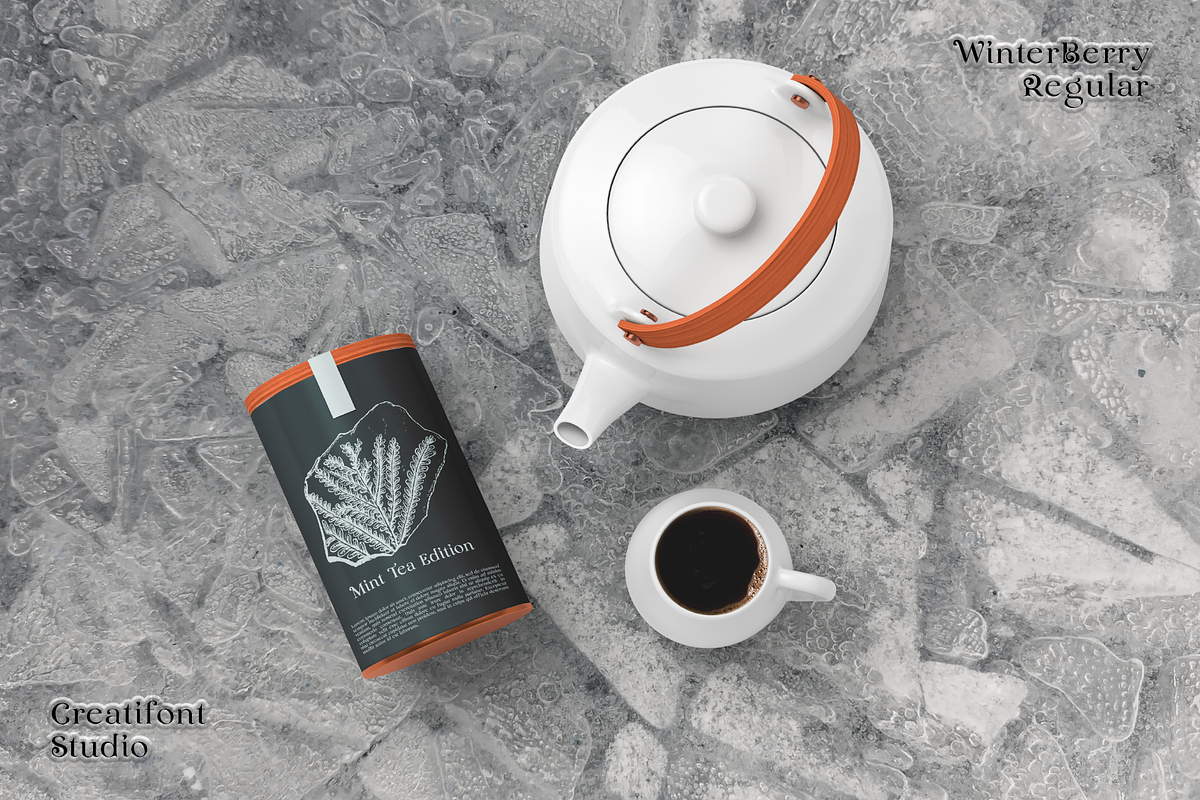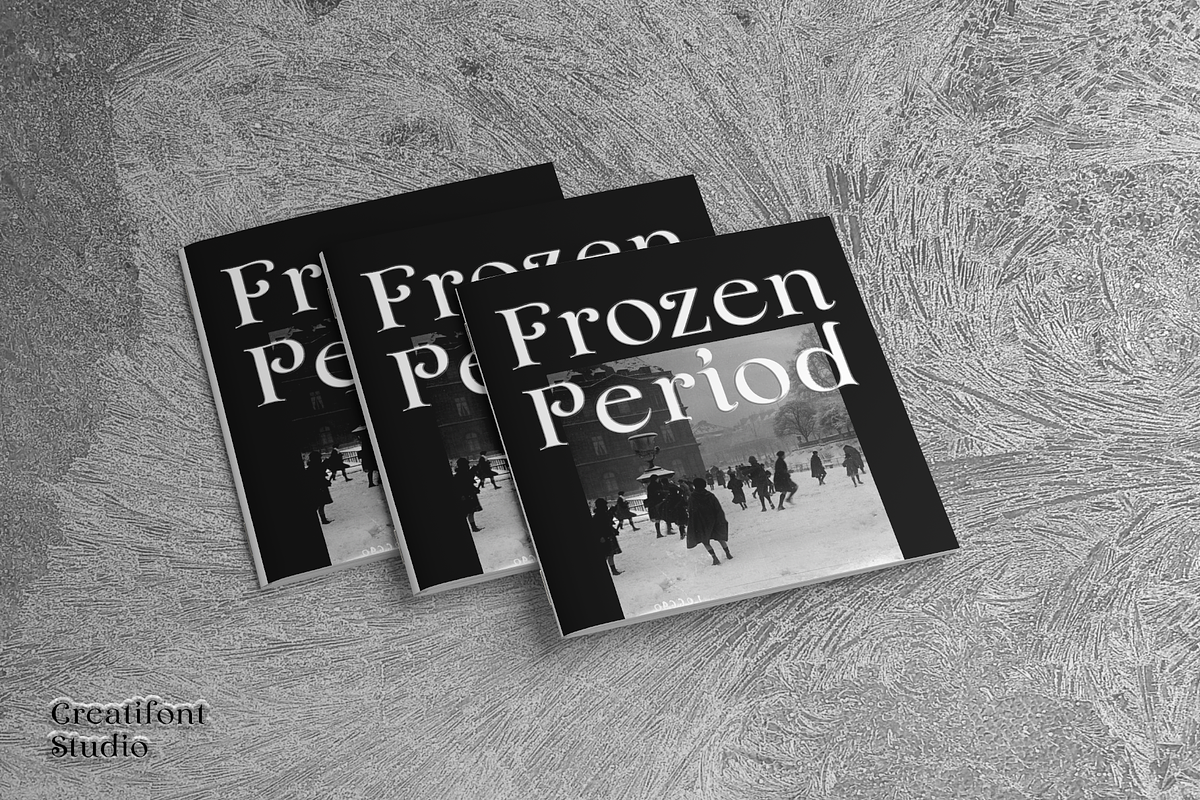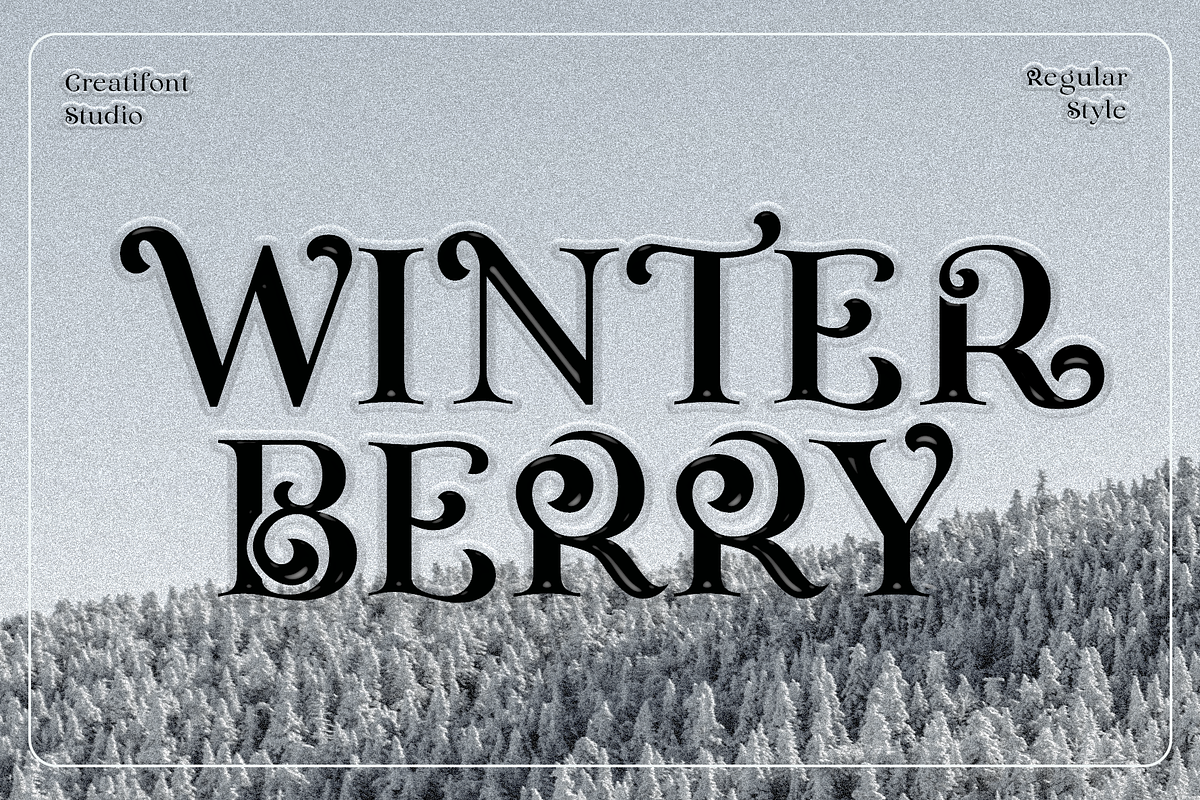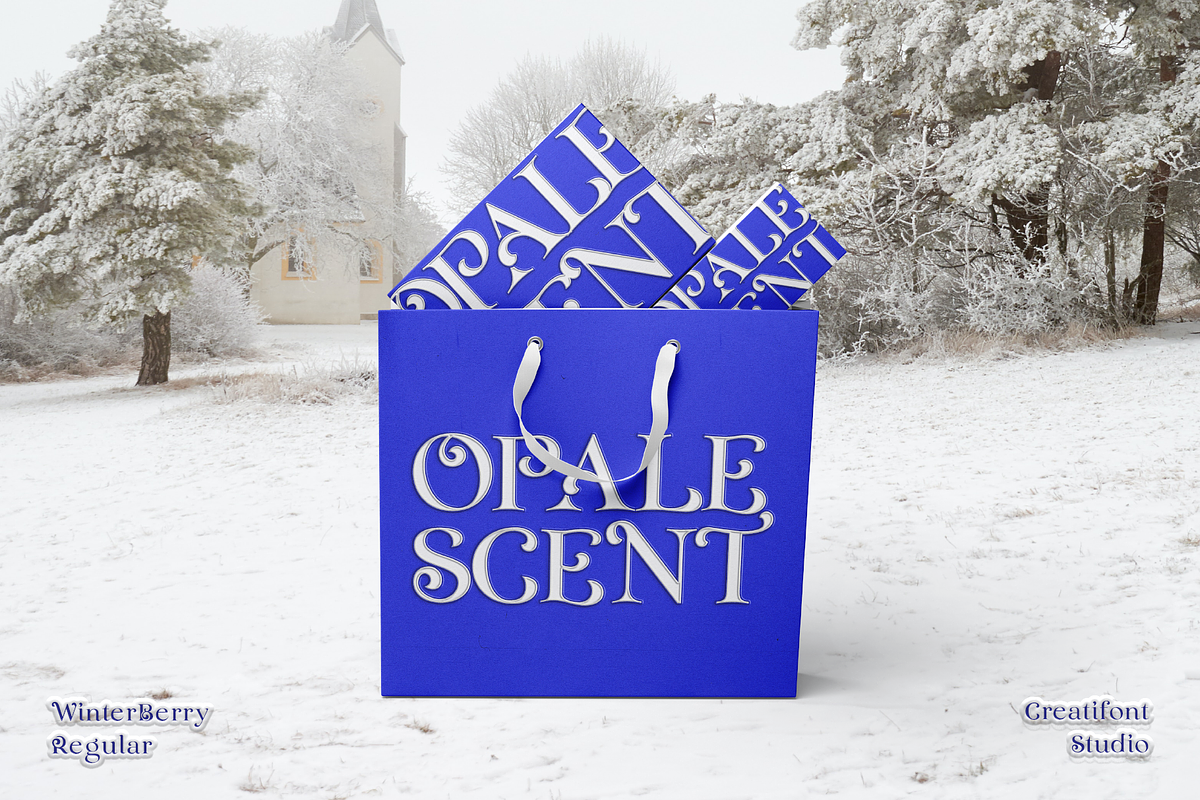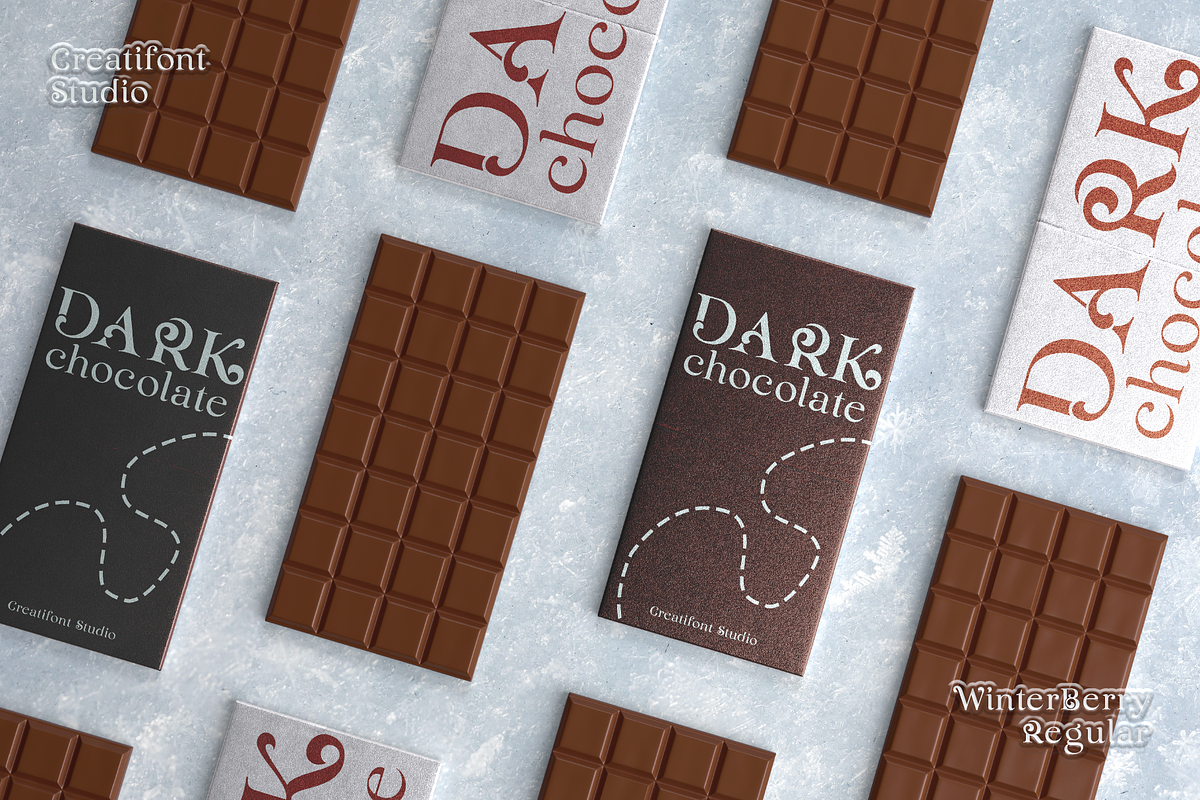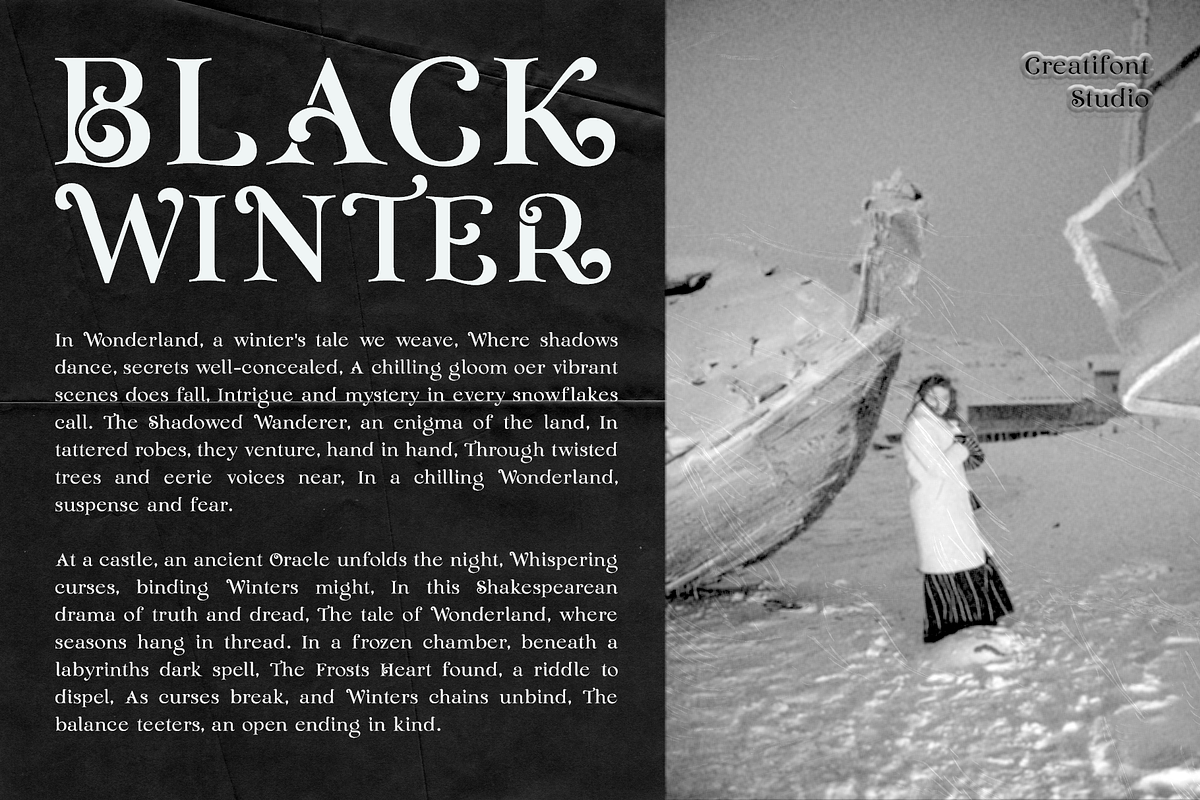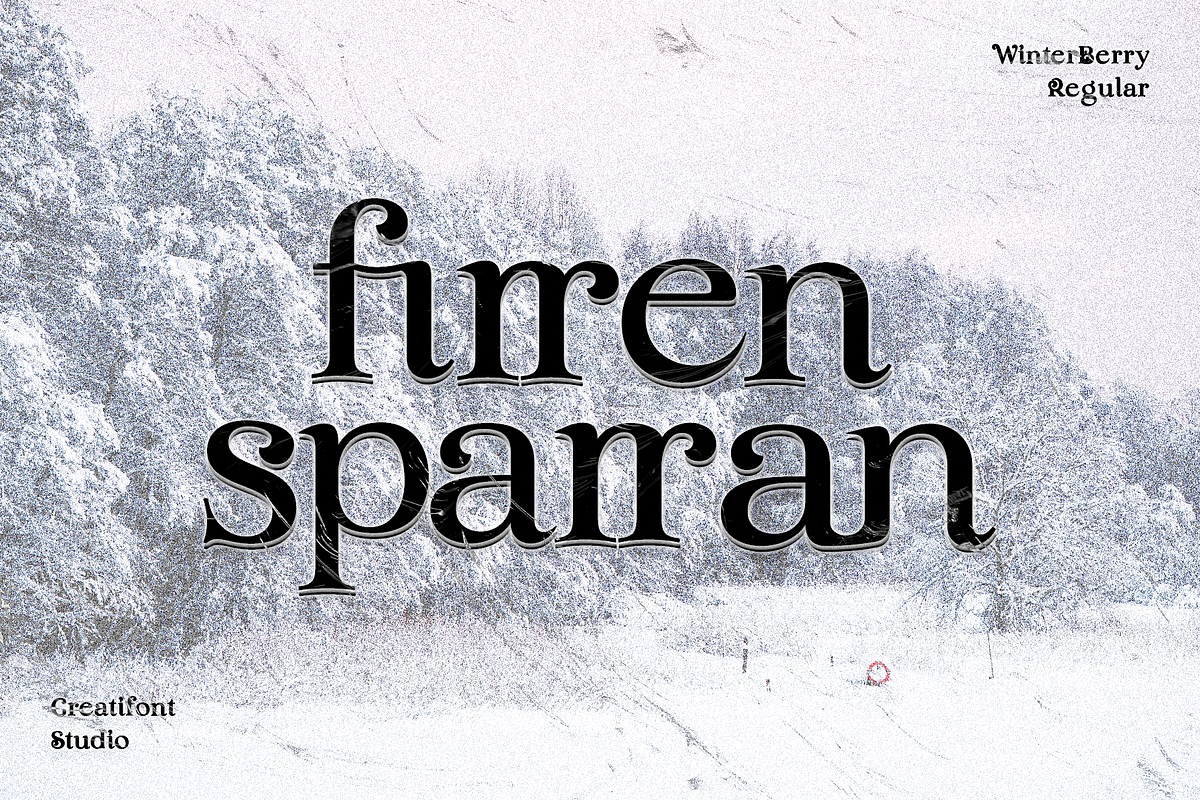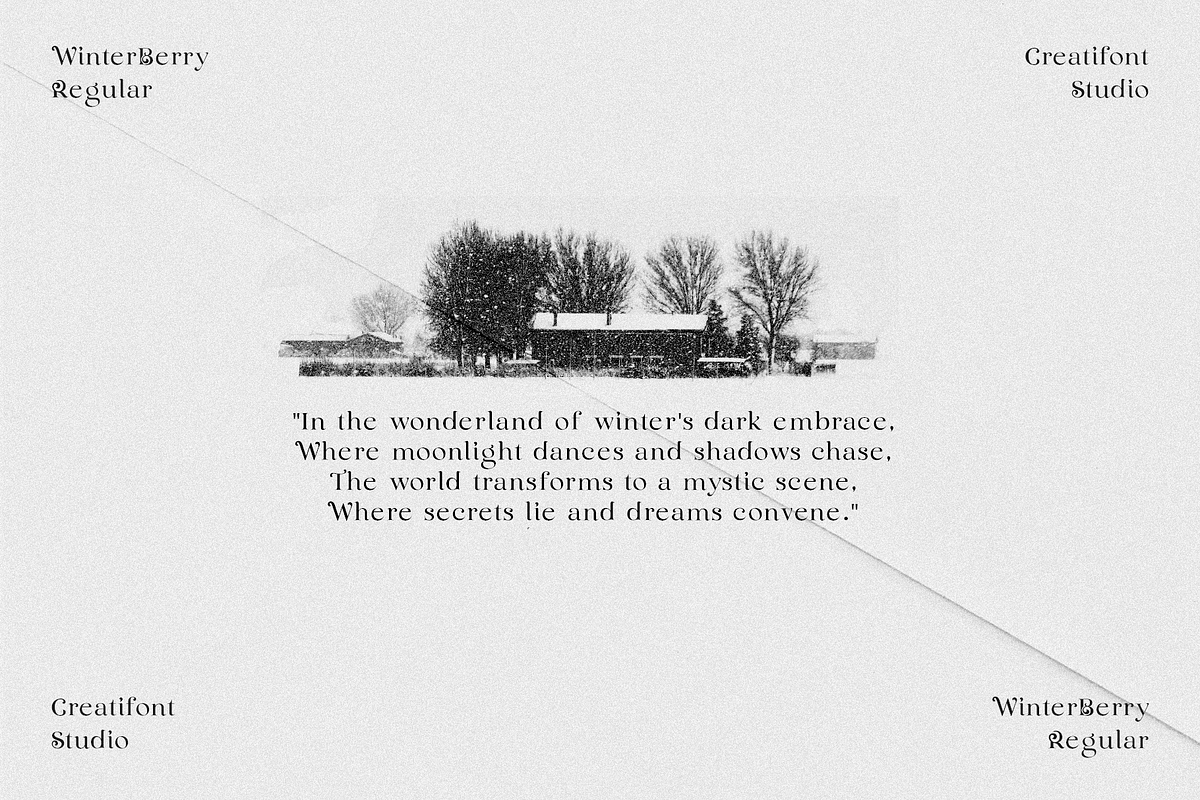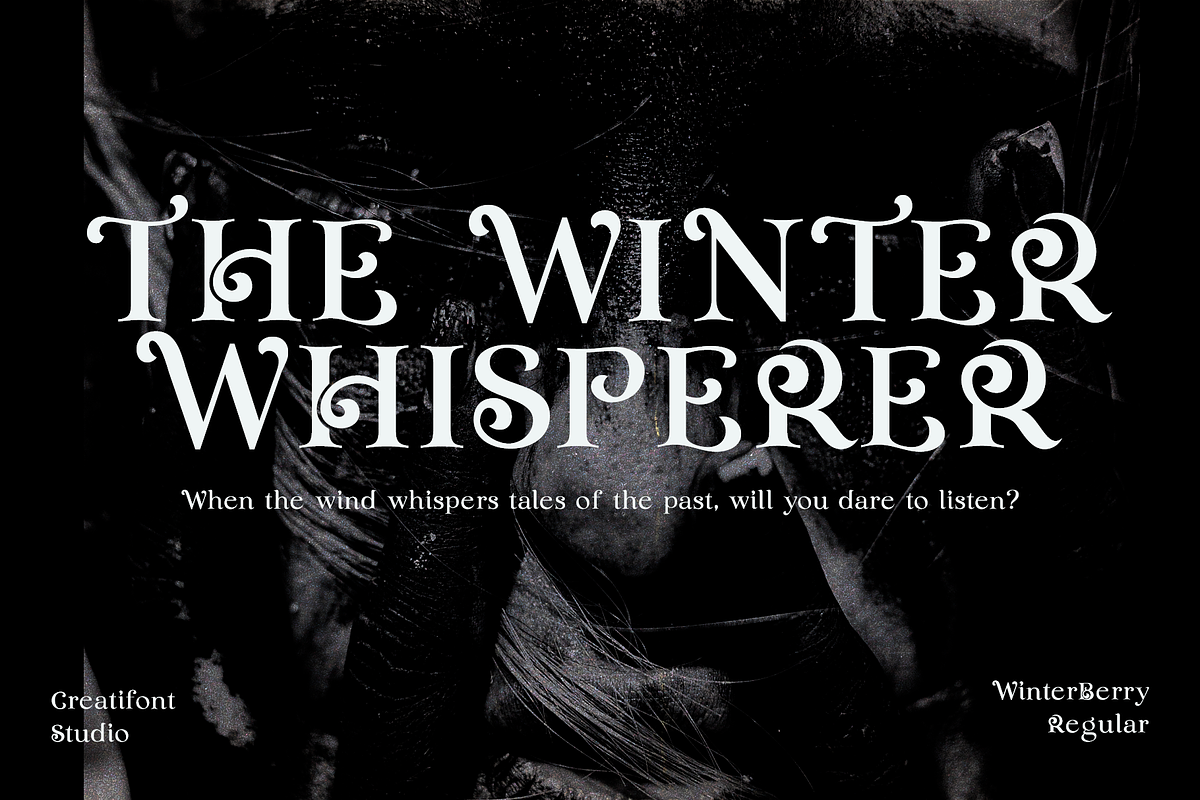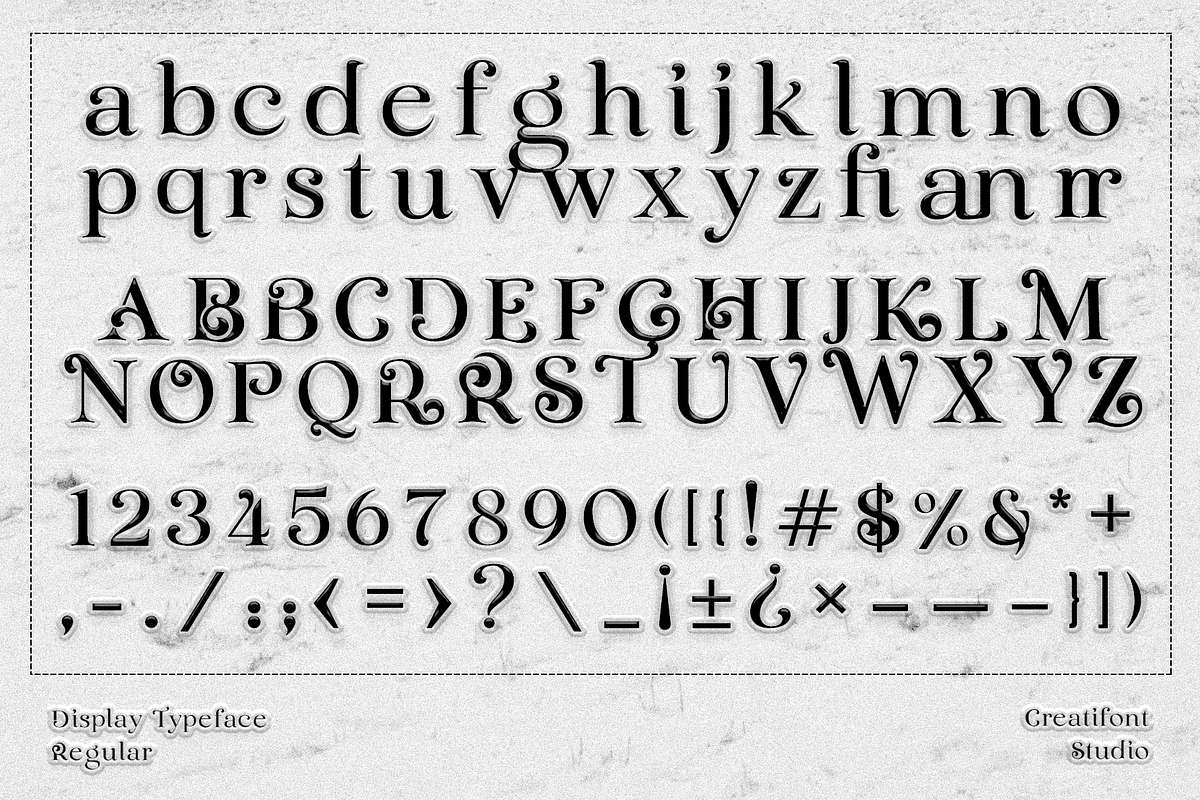
CF Winterberry - Christmas Serif
Winter Berry - is the quintessential serif font that encapsulates the enchanting spirit of the holiday season. Winterberry's versatility shines through with its several stylistic options, allowing you to customize your text with just the right touch of festive flair. It's the font that embodies the warmth and magic of the season, making your designs truly unforgettable. It is suitable for creating designs such as packaging, logos, or titles.